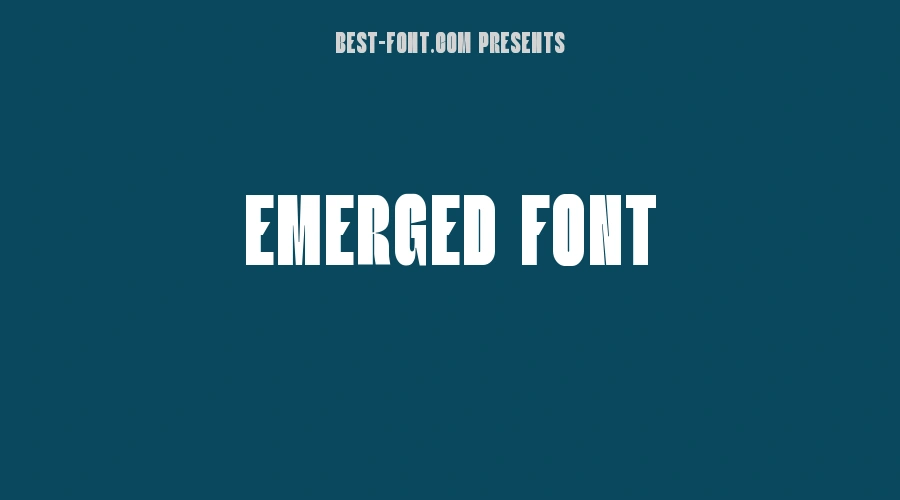
About Emerged Font
Designed with precision, Emerged Font merges perfect spacing with personality in every character. This versatility makes it particularly effective for presentation decks, where durability and reliability directly impact communication quality. Each letterform demonstrates meticulous craftsmanship.
Technical excellence shines through elements like subtle details and initial forms, enhancing typographic versatility. In promotional materials settings, Emerged Font proves its worth through superior purchase influence. The thoughtful execution of proportion and engineering heritage ensures professional results.